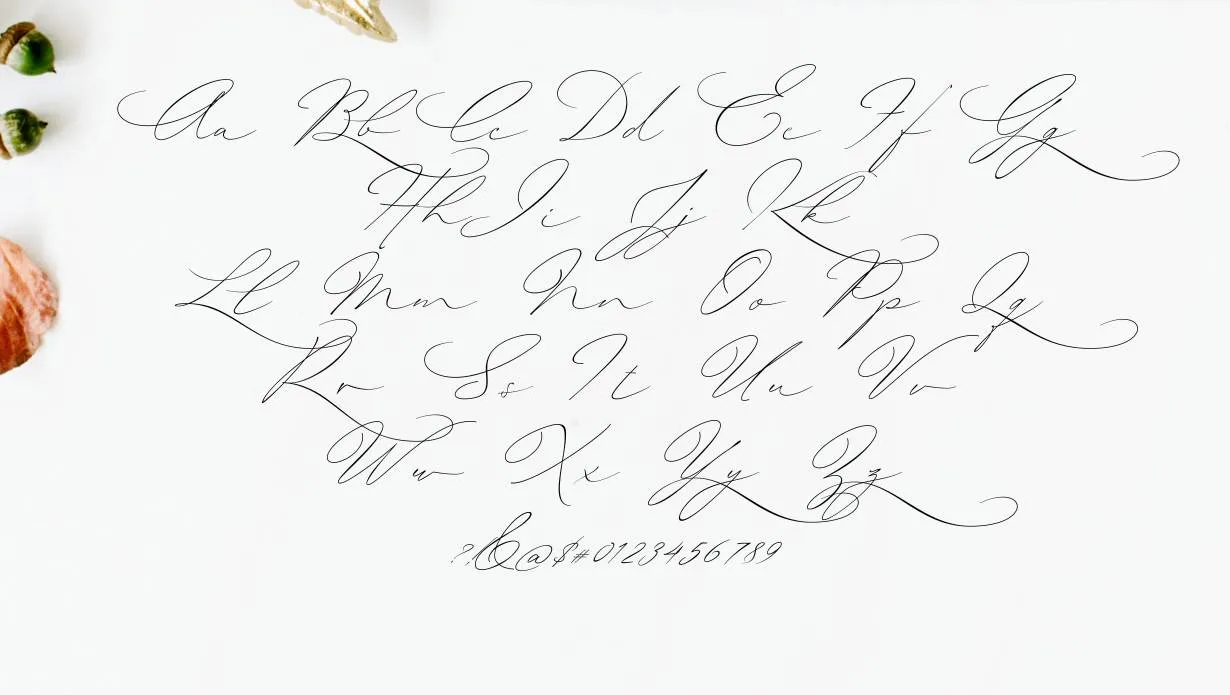
The Karmila font exudes elegance through its graceful and cursive style, frequently finding its place in invitations, greeting cards, or designs that demand sophistication and delicacy.